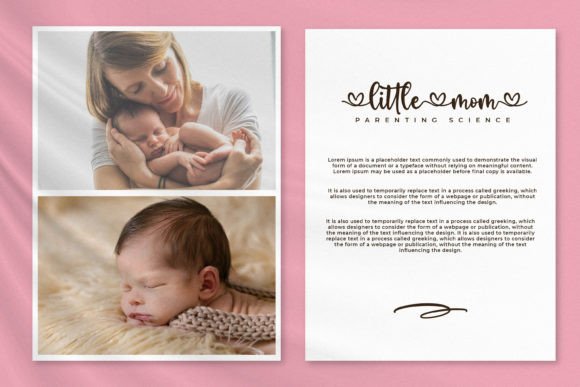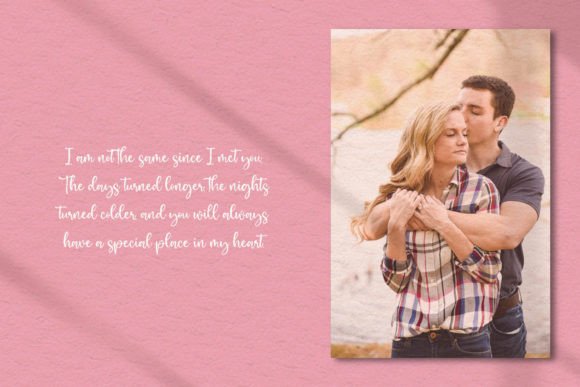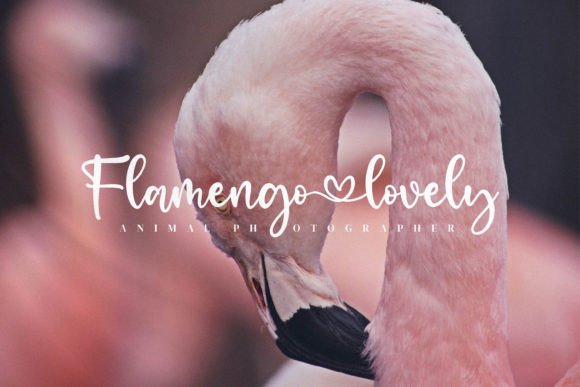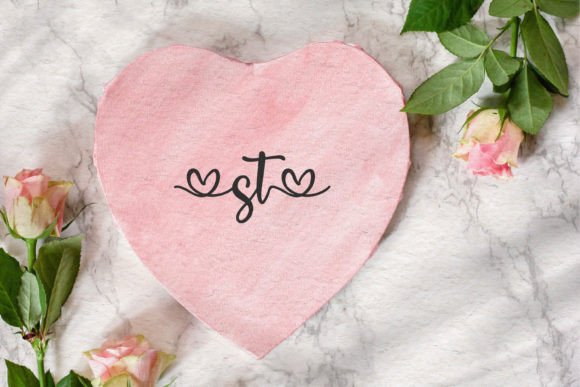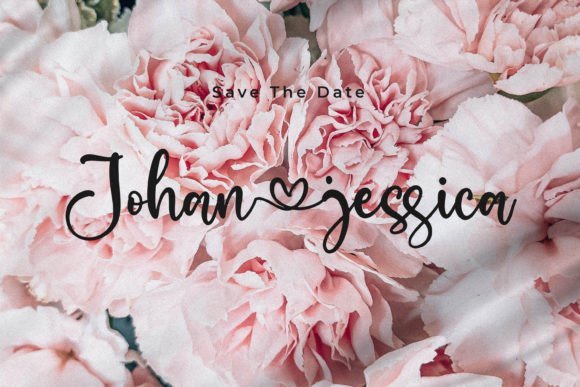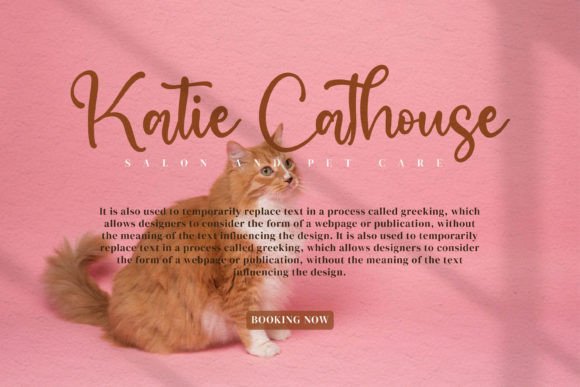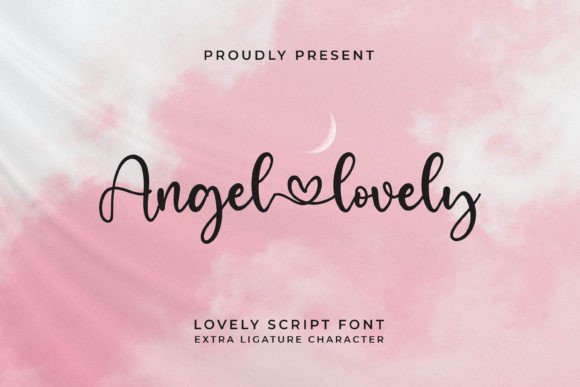
The Quest for the Perfect Font: Discovering Angel Lovely
I’ll never forget the time I was working on a wedding invitation project, and my client asked for a font that was “elegant, yet playful.” I scoured the internet, tried out dozens of fonts, but nothing seemed quite right. That was until I stumbled upon Angel Lovely, a stylish and incredibly elegant script font that has since become a staple in my design toolkit.
A Honest Review of Angel Lovely
So, what makes Angel Lovely so special? Let’s dive into the good stuff! 😊
• ✨ Elegant and sophisticated: Angel Lovely has a refined, high-end feel that’s perfect for weddings, formal events, and luxury brands.
• ✅ Highly versatile: This font can be used for a wide range of design projects, from invitations and greeting cards to logos and business cards.
• 💫 Beautifully crafted: The attention to detail in Angel Lovely is impressive, with intricate lettering and gorgeous swashes.
Of course, no font is perfect, and Angel Lovely has a few minor quirks:
• 🤔 Limited use in body text: While Angel Lovely is stunning as a display font, it may not be the best choice for longer blocks of text.
• ⚠️ Some letters may require manual kerning: As with any script font, you may need to adjust the kerning to get the perfect look.
The Story Behind Angel Lovely
While the true story behind Angel Lovely remains a mystery, it’s easy to imagine that it was crafted by a talented type designer with a passion for elegant script fonts. Perhaps they drew inspiration from classic calligraphy, combined with a modern twist to create this stunning font.
Is Angel Lovely suitable for body text? While beautiful, Angel Lovely is best used as a display font; it may not be ideal for longer blocks of text.